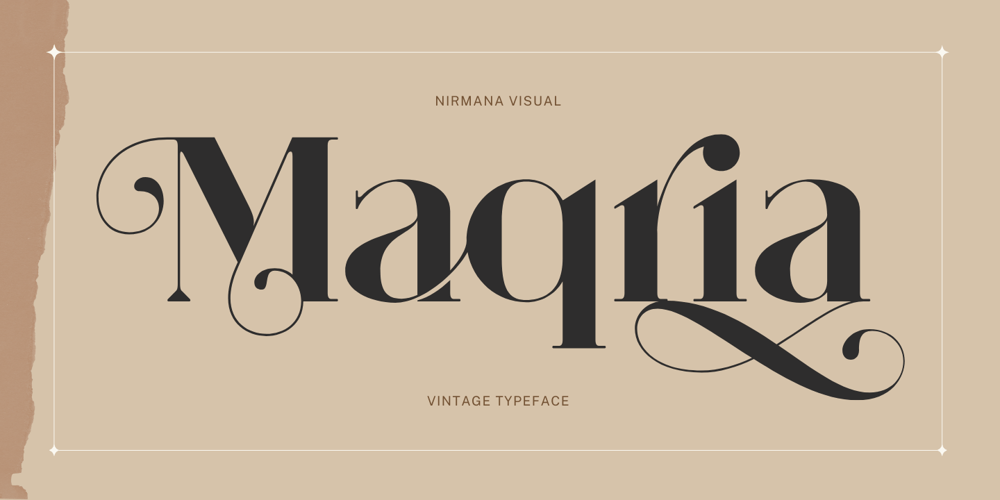
Maqria Vintage Font Family was designed by Sigit Dwipa and published by Nirmana Visual. Maqria Vintage contains 1 styles and family package options. Maqria Vintage Font offers beautiful typographic harmony for a diversity of design projects, including logos & branding, social media posts, advertisements & product designs.